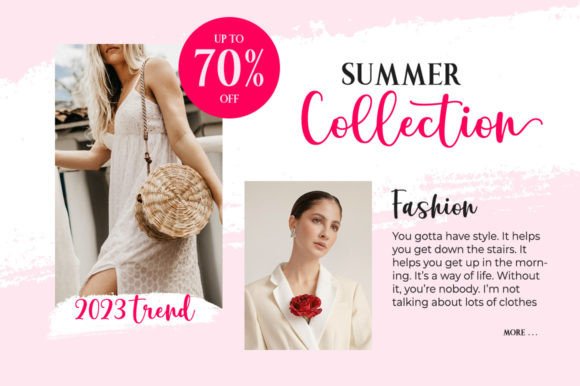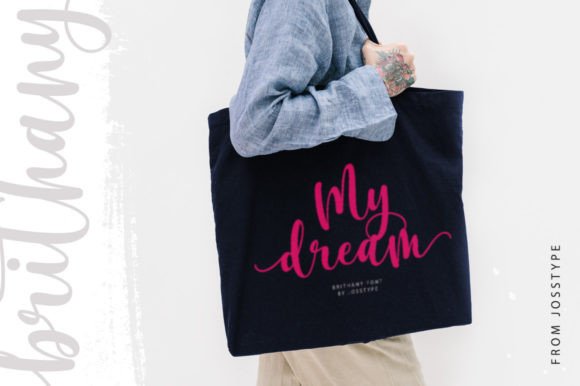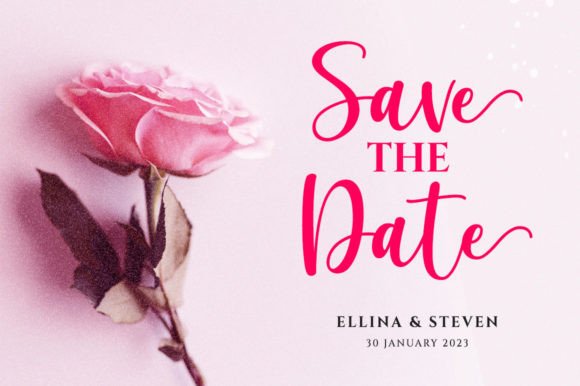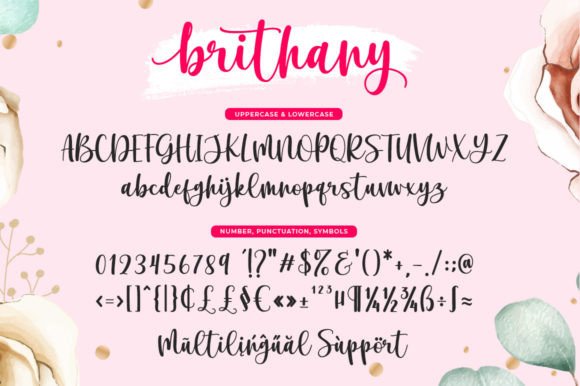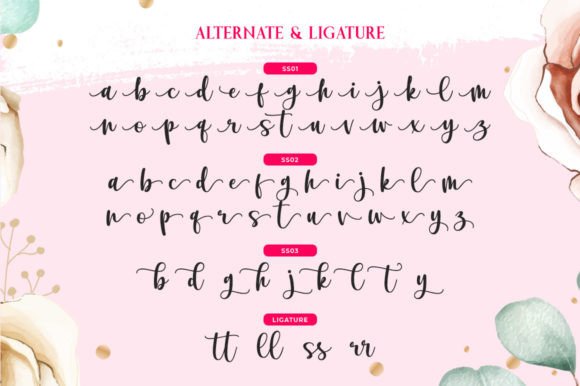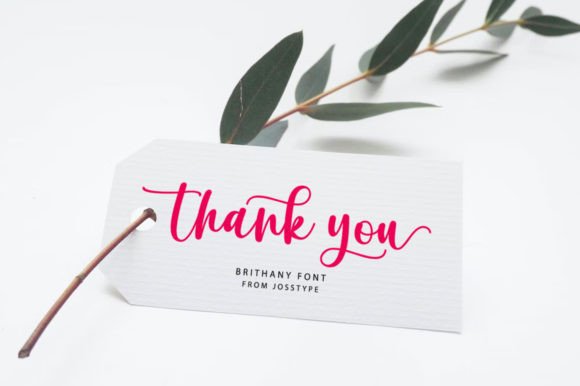
Discover the Elegance of Brithany Font: Elevate Your Design Projects with Luxury and Sophistication
Are you a designer or crafter looking for a font that adds a touch of luxury and sophistication to your projects? Look no further than Brithany Font, a beautiful and light handwritten font that is sure to make your designs stand out. With its unique feel and stunning impact, Brithany Font is the perfect choice for anyone looking to add a touch of elegance to their work.
The Unique Characteristics of Brithany Font
Brithany Font is a one-of-a-kind handwritten font that boasts a range of unique characteristics. Its light and airy feel makes it perfect for designs that require a touch of sophistication and elegance. The font’s handwritten style gives it a personal and organic feel, making it perfect for projects that require a human touch.
One of the standout features of Brithany Font is its unique feel. The font’s letters are carefully crafted to create a sense of fluidity and movement, making it perfect for designs that require a sense of dynamism and energy. Whether you’re working on a logo, a brochure, or a website, Brithany Font is sure to add a touch of luxury and sophistication to your design.
The Benefits of Using Brithany Font in Your Design Projects
So why choose Brithany Font for your design projects? For starters, the font’s unique feel and stunning impact make it perfect for designs that require a touch of luxury and sophistication. Whether you’re working on a high-end brand campaign or a craft project, Brithany Font is sure to elevate your design to the next level.
Another benefit of using Brithany Font is its versatility. The font is perfect for a range of design projects, from logos and brochures to websites and social media graphics. Its light and airy feel makes it easy to read, even at small sizes, making it perfect for designs that require a lot of text.
How to Use Brithany Font in Your Design Projects
To get the most out of Brithany Font, experiment with different design techniques and styles. Try pairing the font with bold colors and striking imagery to create a design that really pops. Alternatively, use the font on its own to create a simple yet elegant design that showcases the font’s unique feel.
Tips and Tricks for Getting the Most Out of Brithany Font
In conclusion, Brithany Font is a beautiful and light handwritten font that is sure to add a touch of luxury and sophistication to any design project. With its unique feel and stunning impact, Brithany Font is the perfect choice for designers and crafters looking to elevate their designs to the next level. Whether you’re working on a high-end brand campaign or a craft project, Brithany Font is sure to make your designs stand out.